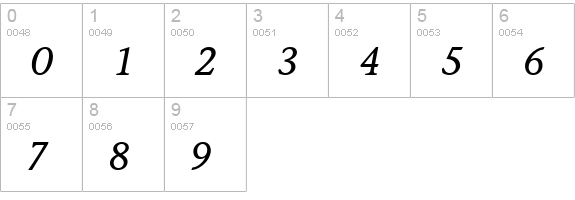
Mesouran Casual SSi Italic is a distinctive, italic variant in the Mesouran typeface family \xE2\x80\x94 well suited to design and typography projects.
Mesouran Casual SSi Italic font offers a delightful blend of casual sophistication and playful elegance. The slanted italic design adds a touch of dynamism to the flowing curves and soft lines of this versatile typeface. Perfect for a wide range of design projects, from elegant invitations to modern branding, Mesouran Casual SSi Italic font exudes charm and style. Best of all, this font is freely available for download at FontsMarket.com. Whether you're a seasoned designer looking for a fresh addition to your collection or a newcomer seeking a stylish font for your next project, Mesouran Casual SSi Italic font is the perfect choice. Download it today and elevate your designs with this beautiful and unique typeface.